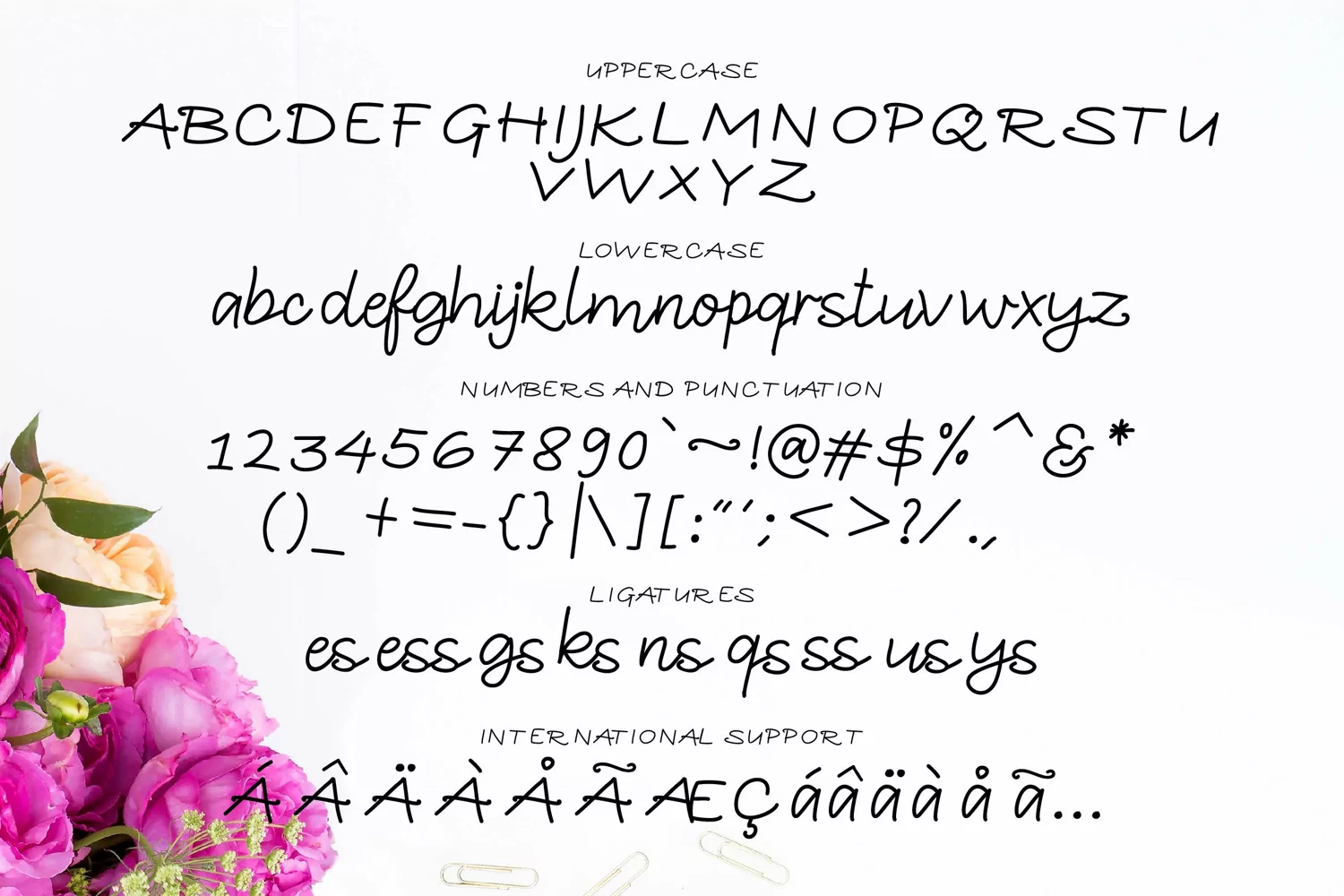
Boss Babe a whimsical fun script font that comes in two styles - regular italic and upright!*Boss Babe is ideal for all kinds of projects ranging from logos, business cards and other branding projects to packaging projects as well as fun design projects like greeting cards, apparel design, prints, quotes, etc.
Both files contain Uppercase and Lowercase alphabets, numbers and punctuations, ligatures as well as international language support.